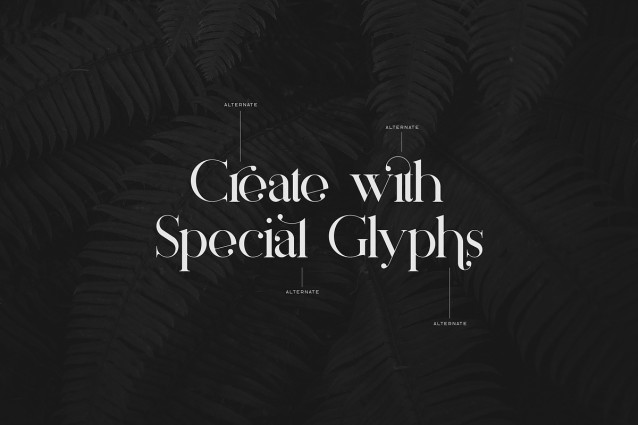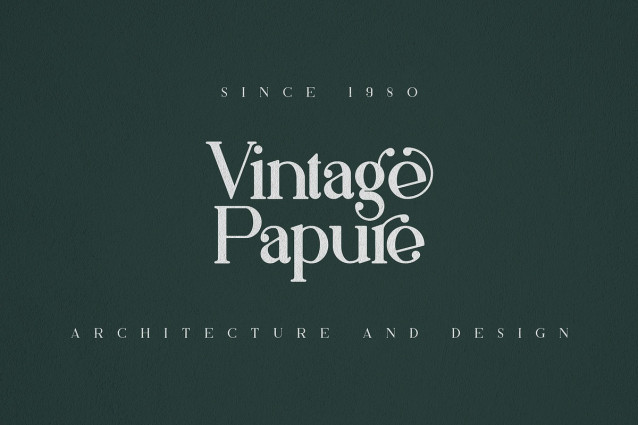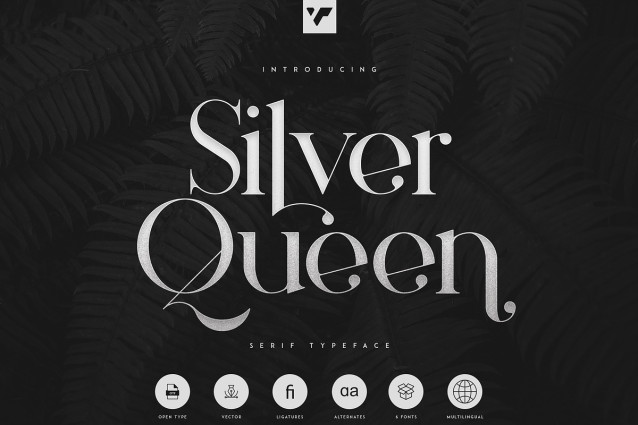
Silver Queen Font
Silver Queen Font is luxury, vintage typeface with 6 weights loaded alternate glyphs, ligatures and multilingual support. It’s a very versatile font that works great in large and small sizes.
Silver Queen is perfect for branding projects, home-ware designs, product packaging, magazine headers – or simply as a stylish text overlay to any background image.